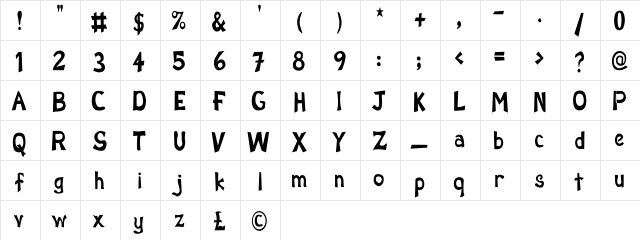
SchwarzWald Cn Regular Font Preview
SchwarzWald Cn Regular
Design Context for SchwarzWald Cn Typeface
SchwarzWald Cn is a composed and adaptable typeface that performs quietly and consistently across a wide range of design contexts.
Pro Tip: Pair SchwarzWald Cn with a font of contrasting weight or personality to build a more expressive typographic hierarchy.